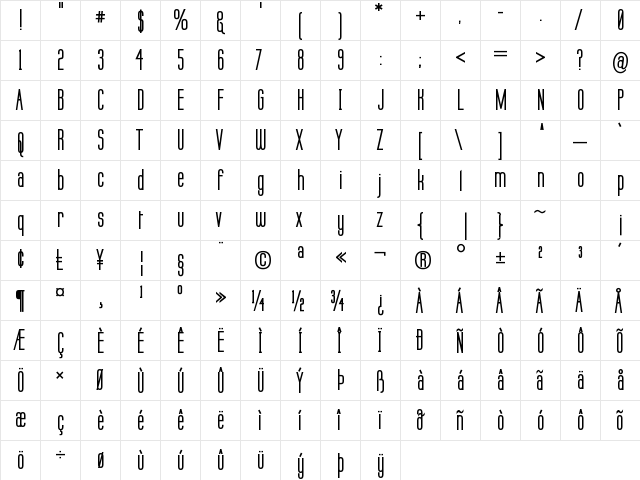
Labtop Bold
Design Context for Labtop Typeface
Labtop is a composed and adaptable typeface that performs quietly and consistently across a wide range of design contexts. Its bold stroke weight gives it real presence on the page.